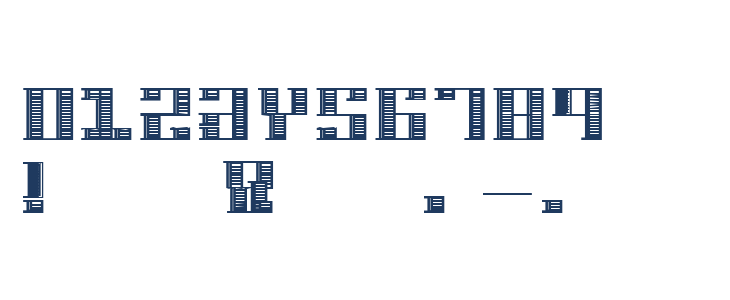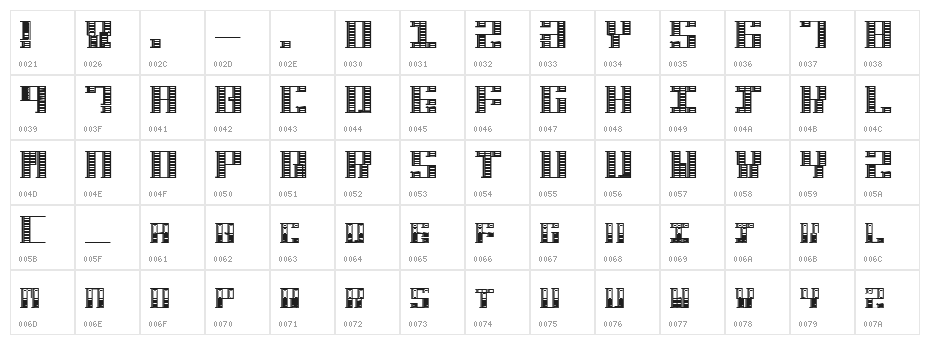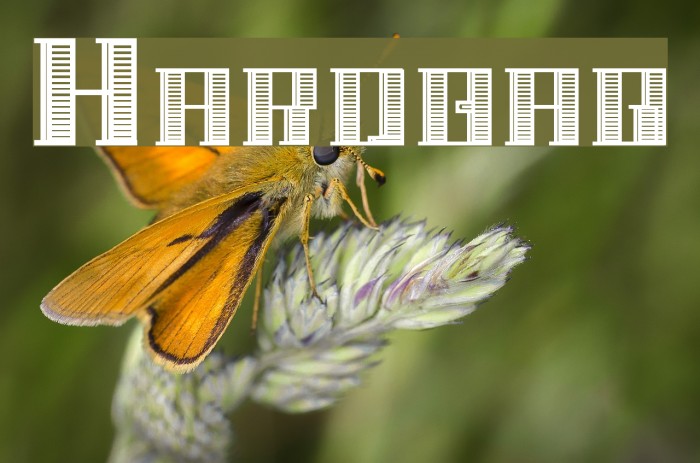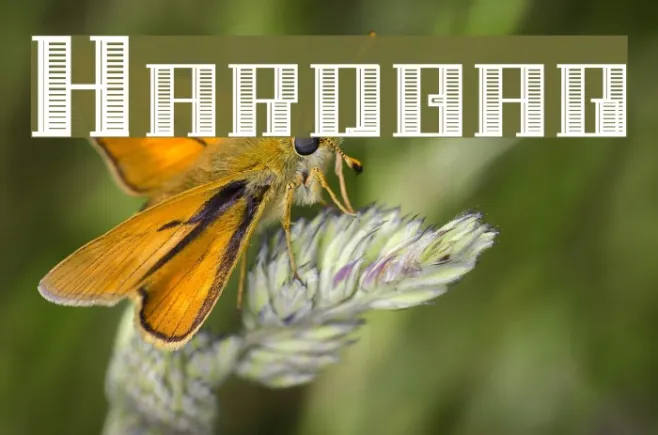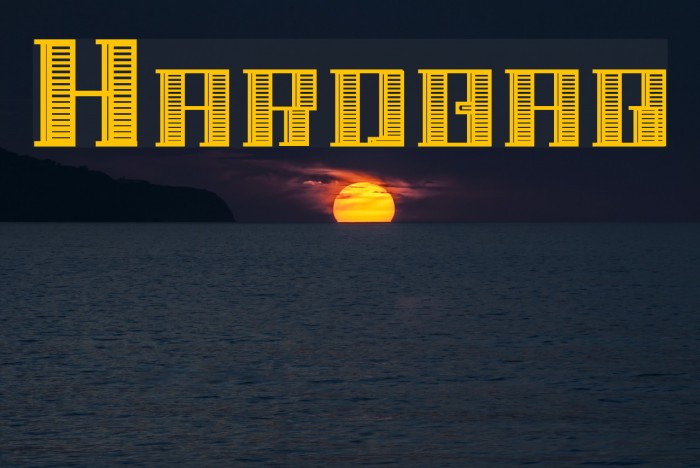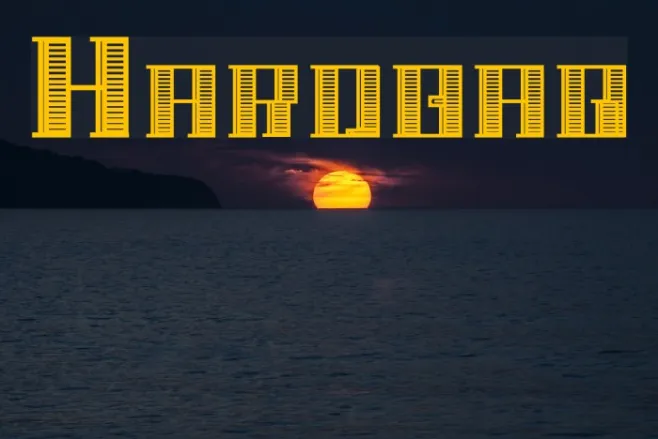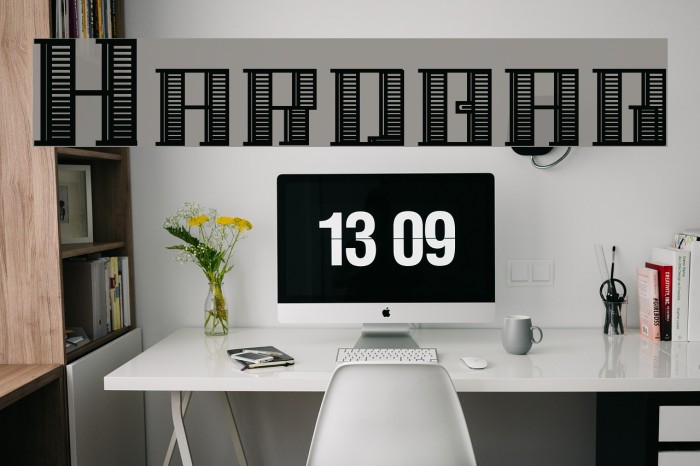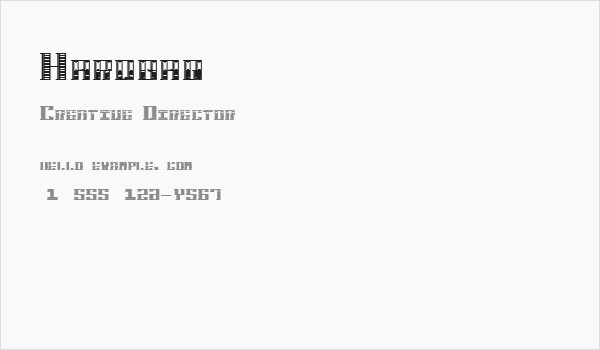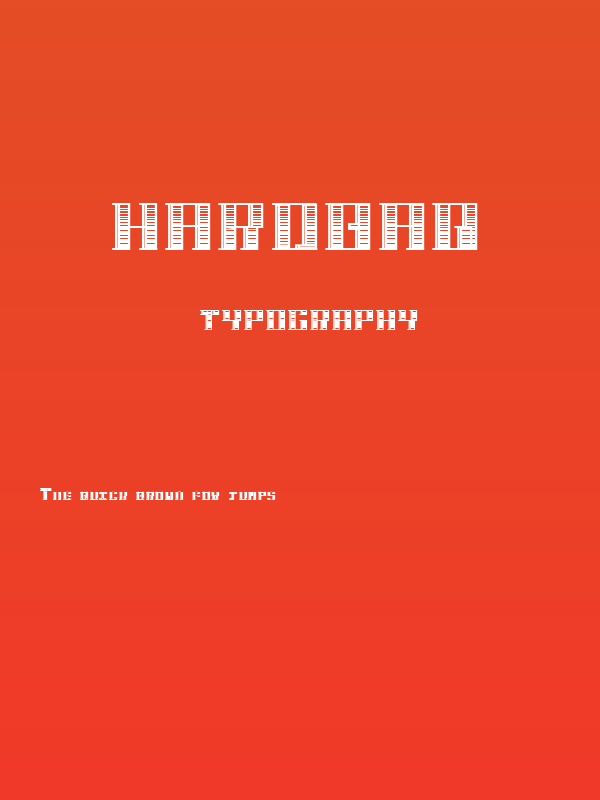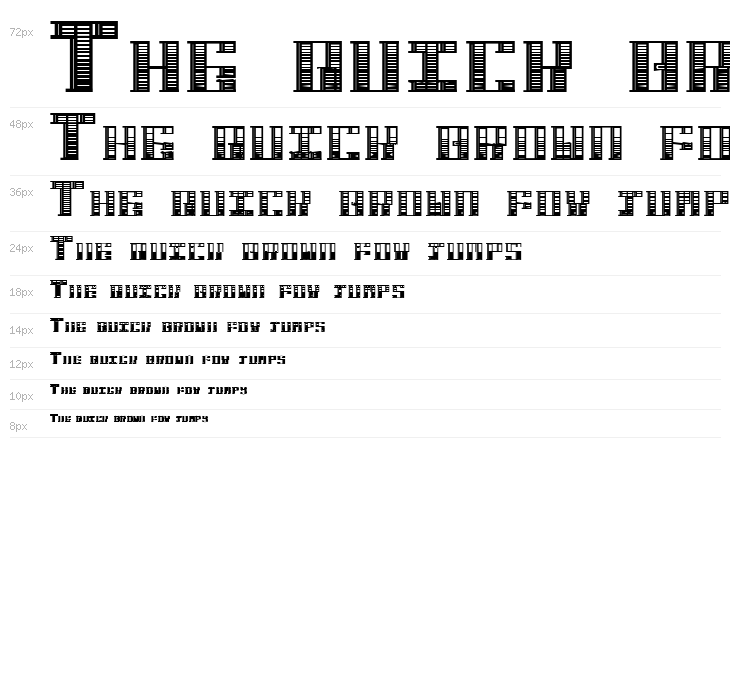
Hardbaq Font
Hardbaq Description
This font features a unique, decorative style with a distinct striped pattern within each character, creating a textured and layered appearance. The uppercase and lowercase letters maintain a consistent geometric form, with straight lines and sharp angles. Numbers and special characters follow the same design principles, ensuring uniformity across all glyphs. The font's intricate design makes it stand out, offering a bold and eye-catching aesthetic. Its structured and detailed look suggests a modern yet industrial feel, suitable for projects requiring a strong visual impact.
| Overall Style | Modern, Industrial |
| Proposed Projects | Ideal for branding, posters, album covers, and any project needing a bold, decorative typeface. |